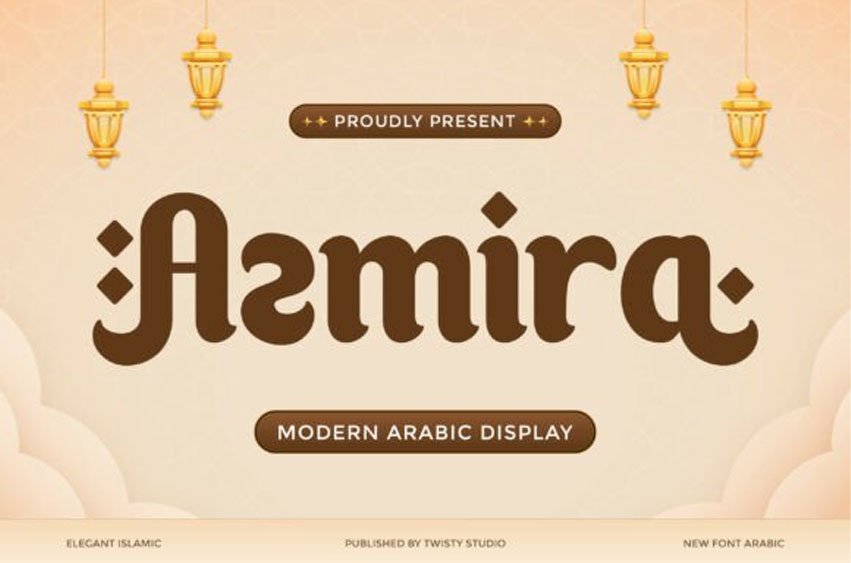
Azmira Font is a modern Arabic display font that beautifully blends cultural elegance with a contemporary design approach.
Inspired by the rich heritage of Arabic letterforms, this typeface features smooth curves, flowing lines, and distinctive shapes that create a harmonious and visually captivating style. It brings a unique balance between tradition and modernity, making it both expressive and refined.